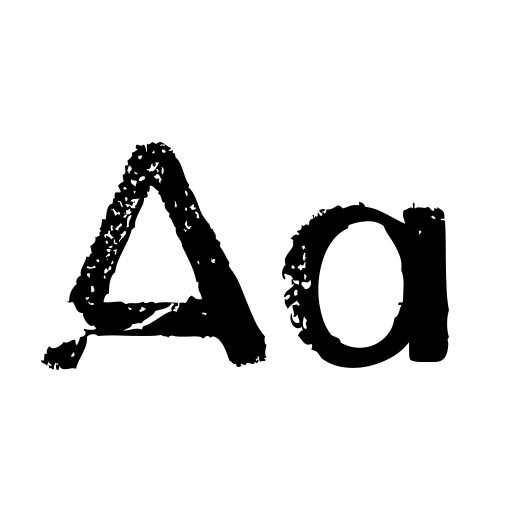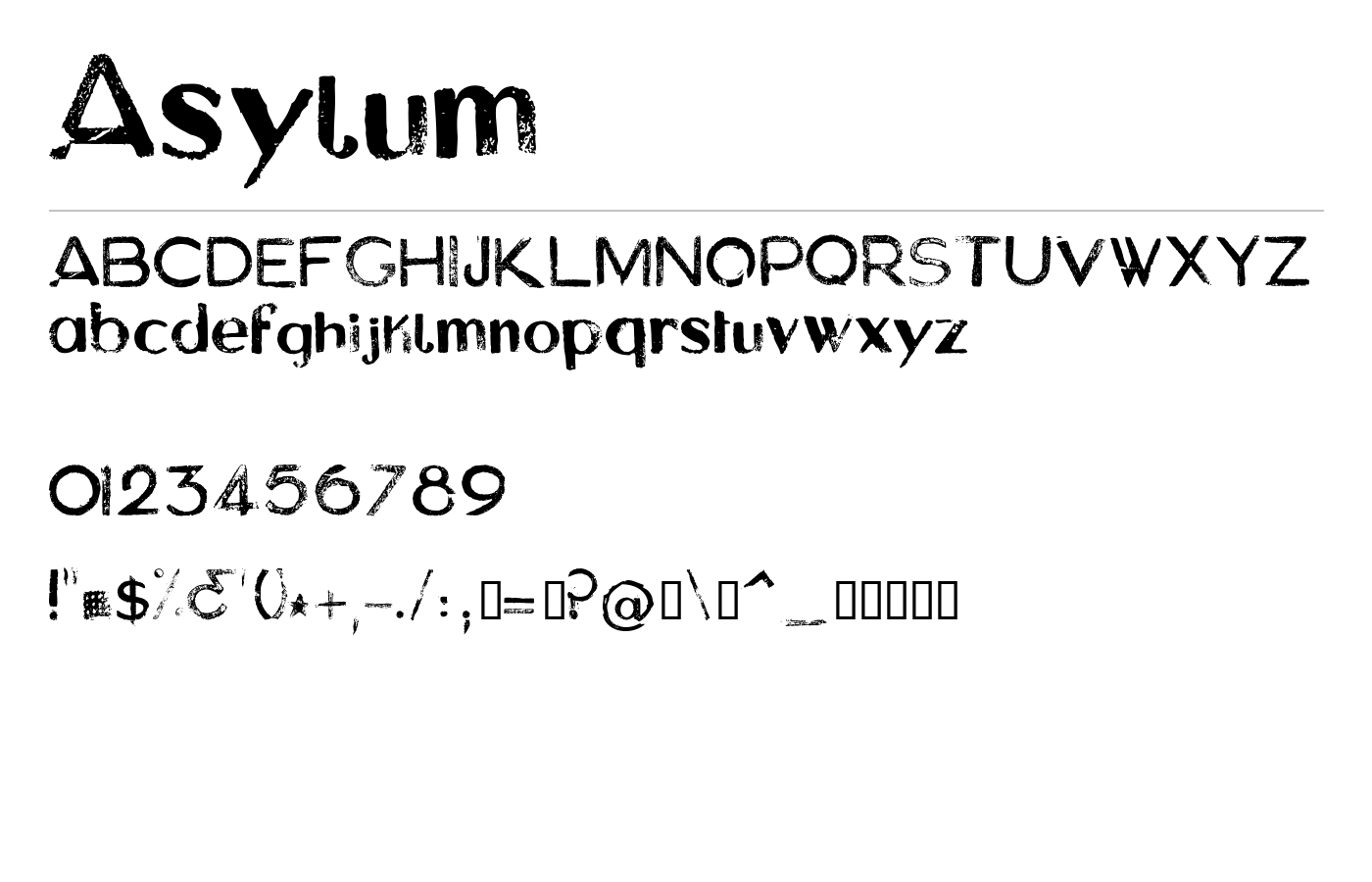
Asylum is a distressed, sans serif font with a rough, grungy texture that gives it a raw, edgy character. Its irregular stroke edges and worn appearance evoke a sense of rebellion and urban grit, making it ideal for creative projects that seek an unconventional, bold, and somewhat chaotic vibe. This font works best for posters, logos, and designs that want to convey a sense of intensity or underground culture.
Asylum Font
About Asylum Font
| Font family | Asylum Font |
| Designer | Chirurgie Graphique |